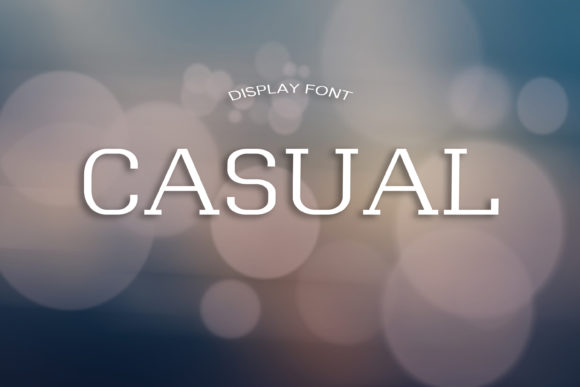
The Casual Font: Elevating Your Designs with Elegance
I’ll never forget the time I was working on a project for a client who wanted a sophisticated yet approachable look. I had spent hours browsing through font libraries, but nothing seemed quite right. That was until I stumbled upon the Casual font. Its elegant, serif-style display instantly caught my eye, and I knew I had found the perfect fit. In this article, I’ll share my experience with the Casual font, its features, and how to make the most of it in your designs.
A First Impression: What I Love About Casual Font
The Casual font has quickly become a staple in my design toolkit, and for good reason. Here are a few things that I love about it:
• ✨ Elegant and Clean Style: The font features an incredibly clean and elegant style that adds a touch of sophistication to any design.
• ✅ Excellent Legibility: The Casual font delivers messages with confidence, legibility, and clarity, making it perfect for a wide range of design projects.
• 💼 Versatility: Its serif-style display makes it suitable for headings, titles, and short paragraphs, giving designers plenty of creative freedom.
While the Casual font is undoubtedly a powerful tool, there are a few quirks to be aware of:
• 🤔 Limited Use in Body Text: Due to its elegant and display nature, the Casual font might not be the best choice for lengthy body text. It’s perfect for headings and titles but consider a more readable font for larger blocks of text.
• ⚠️ Glyphs and OpenType Features: While the font does offer some OpenType features, it might not have the extensive range of glyphs or stylistic alternates that some designers might be looking for.
Alternatives and Similar Fonts
If you’re looking for something similar to the Casual font or want to explore other options, here are a few alternatives:
• Playfair Display: A luxurious and elegant font perfect for headlines and titles. Its classic feel makes it a great alternative for projects requiring a bit of sophistication.
• Raleway: A versatile font with a range of weights, making it suitable for both headings and body text. Its elegant feel aligns well with the Casual font.
• Lato: A modern sans-serif font that offers a clean look. While different in style, its legibility and sleek appearance make it a great choice for designs needing a contemporary feel.
• Merriweather: A classic serif font that pairs well with the Casual font. Its traditional look makes it perfect for projects that require a bit of vintage charm.
The Story Behind Casual Font
While the exact origins of the Casual font might not be well-documented, it’s clear that its design was inspired by a desire to create elegant yet approachable typography. The creator aimed to produce a font that could easily convey messages with clarity and confidence, suitable for a wide range of design projects.
Font Name Casual Font
Author dmytroyarish
Is the Casual font suitable for body text? While it’s primarily designed for headings and titles due to its elegant and display nature, it can be used for short paragraphs. However, for lengthy body text, a more readable font might be preferable.
In conclusion, the Casual font is a versatile and elegant addition to any designer’s toolkit. Its clean style, excellent legibility, and range of applications make it a go-to choice for projects requiring a touch of sophistication. Whether you’re designing for digital platforms or traditional media, the Casual font is sure to elevate your work.